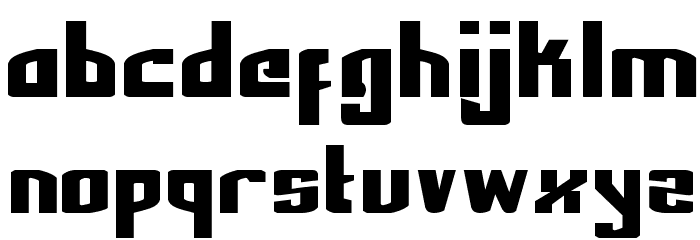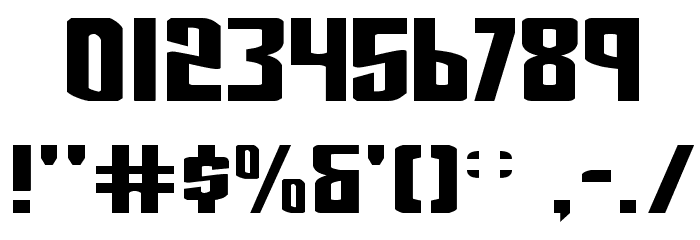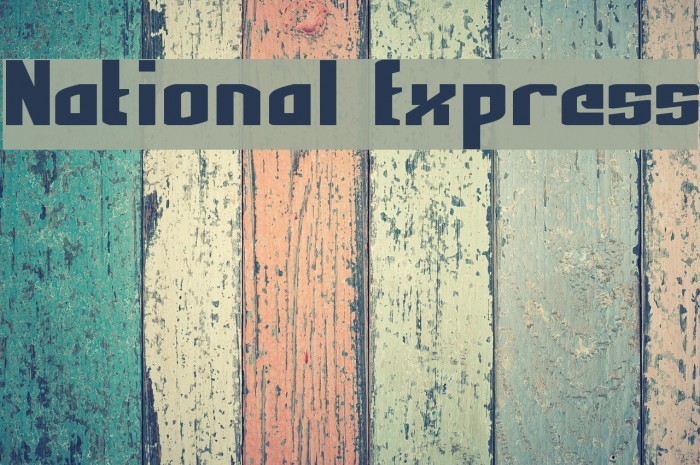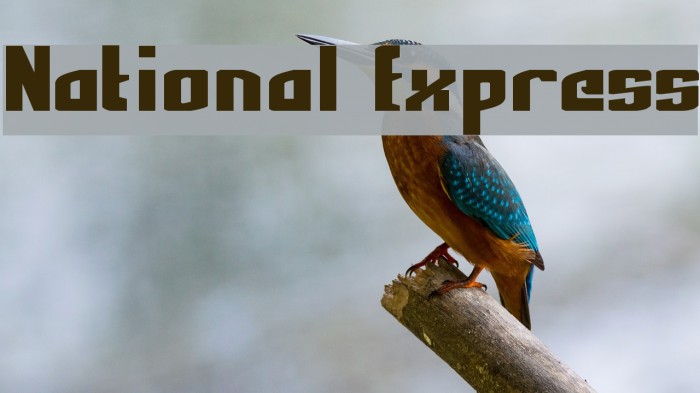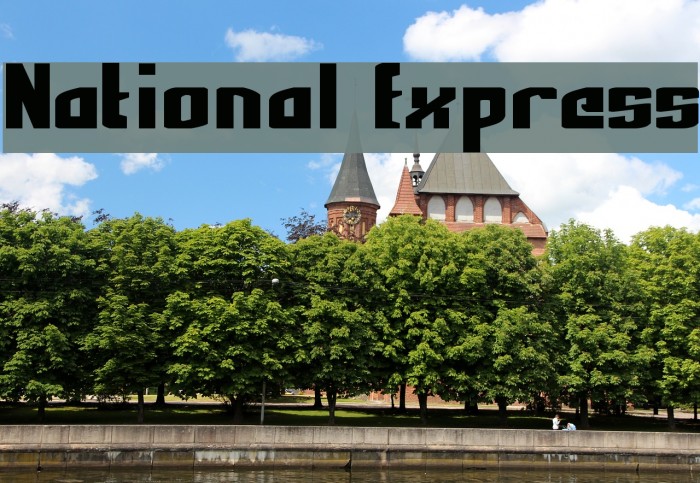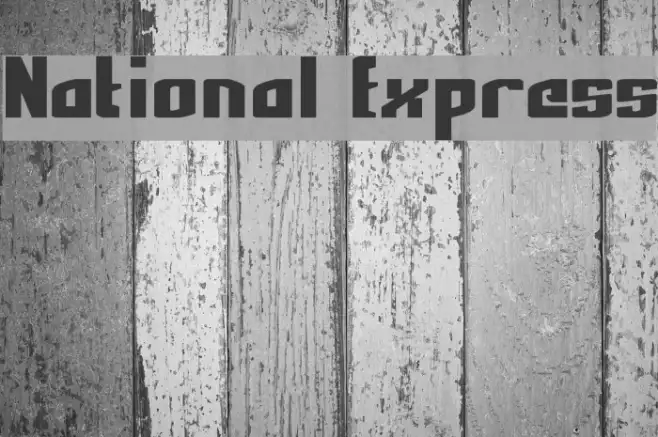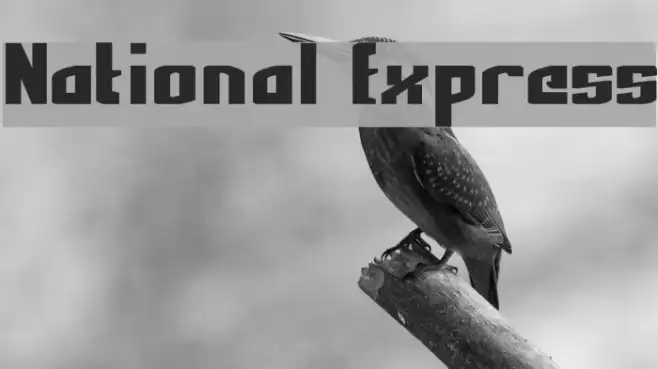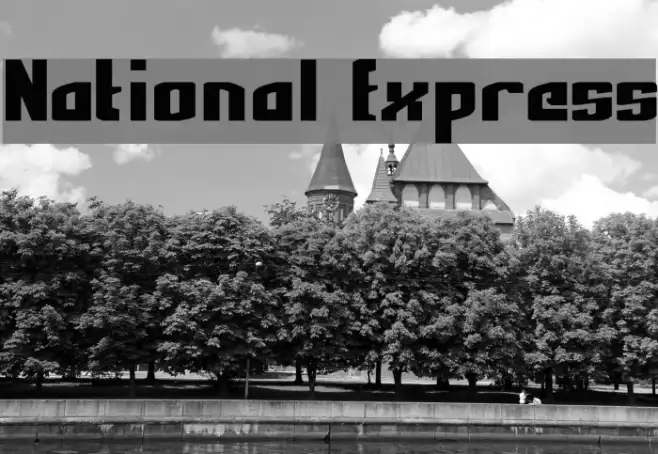
National Express Font
This font features a bold and striking design with geometric influences, characterized by its sharp angles and strong presence. The uppercase letters are particularly prominent, with a blocky and robust appearance that commands attention. The lowercase letters maintain the same boldness, ensuring consistency throughout the typeface. Numbers and special characters are designed to match the overall aesthetic, providing a cohesive look. The font's style is reminiscent of industrial and modern design, making it suitable for impactful headlines and branding.
A bold, geometric font with a strong, industrial aesthetic.
- Proposed Projects: Ideal for branding, posters, and headlines where a strong visual impact is needed.